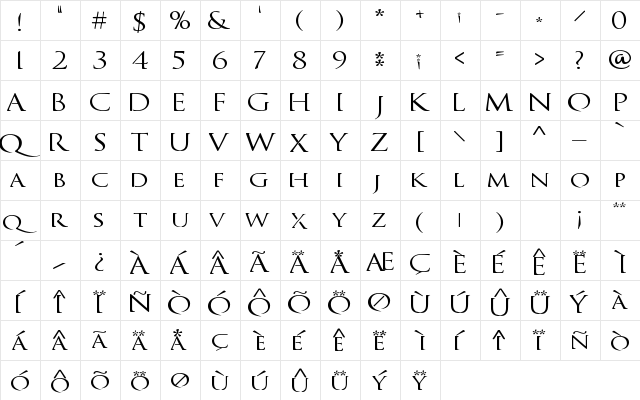
QuagentRegular Regular
| Foundry | Xerographer Fonts |
| Designer | Max Infeld Xerographer Fonts |
Design Context for QuagentRegular Typeface
QuagentRegular offers clean, dependable letterforms without strong stylistic allegiance, making it a practical choice for designers who need flexibility.